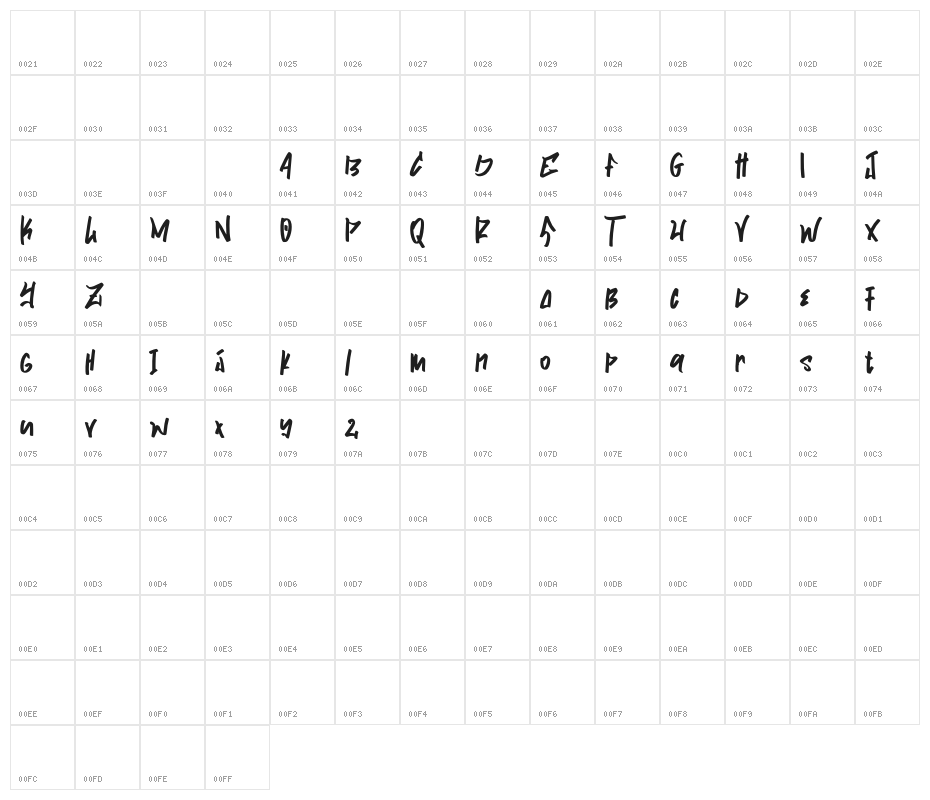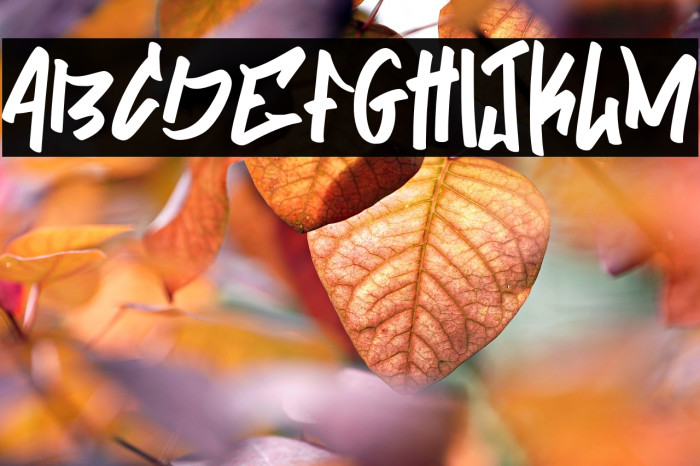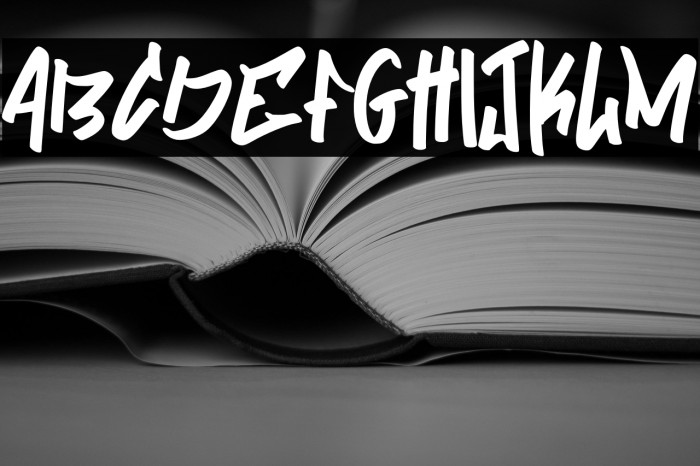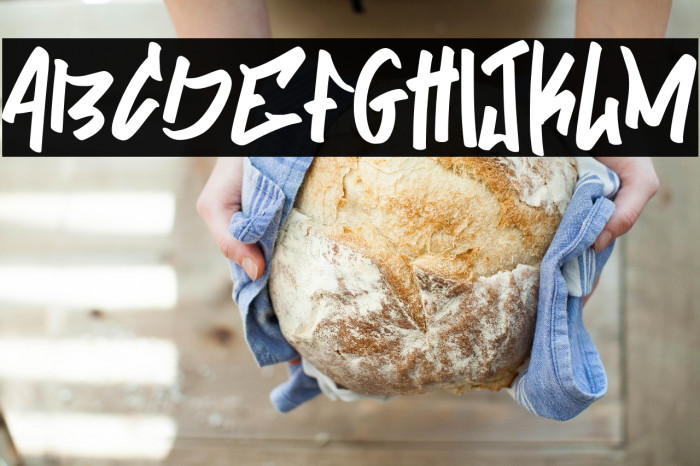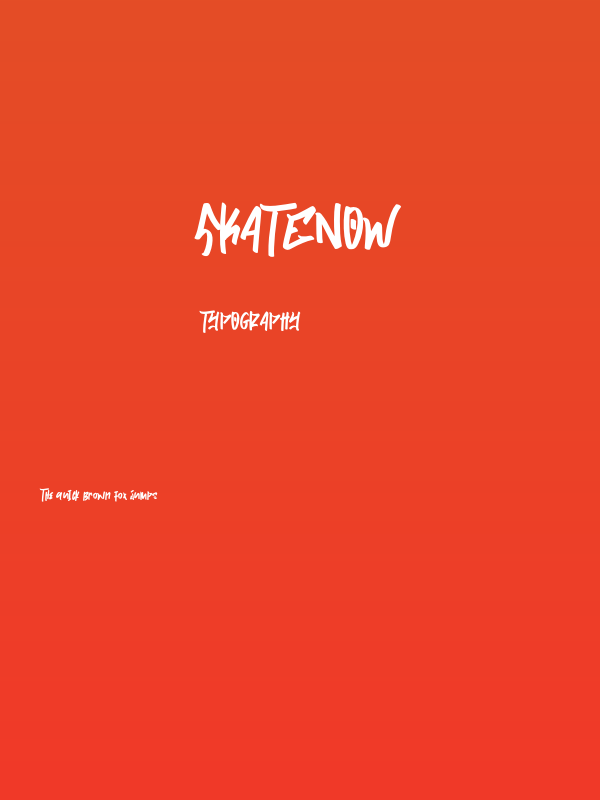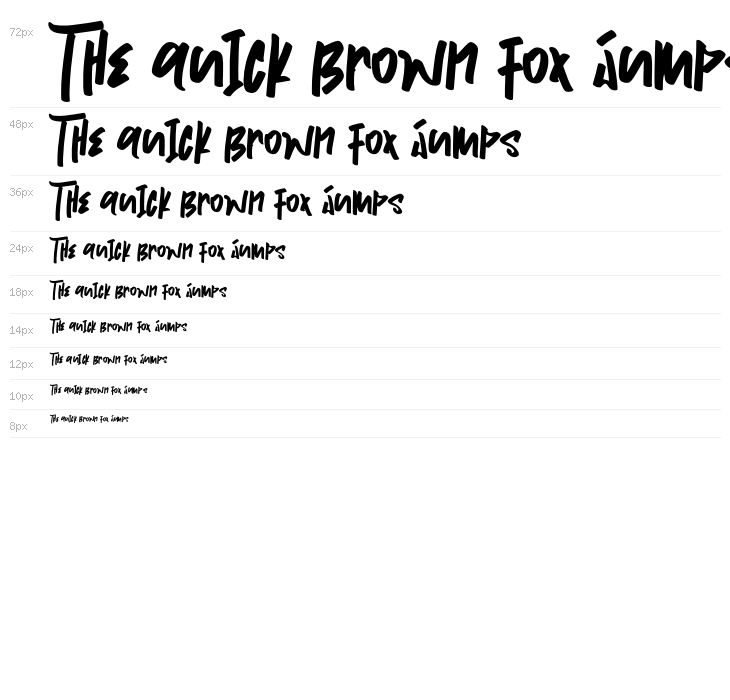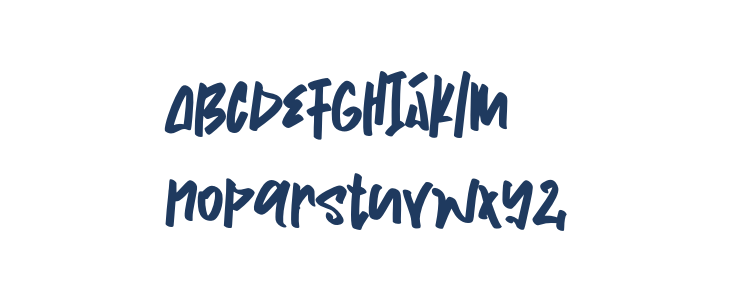
Skatenow Font
Skatenow Description
This font exudes a bold, energetic style with its graffiti-inspired design. The letters are characterized by thick strokes and dynamic, angular shapes that convey a sense of movement and urban flair. The uppercase and lowercase letters maintain a consistent style, with some letters featuring unique, stylized elements that enhance the overall aesthetic. The numbers and special characters are equally bold, fitting seamlessly into the font's cohesive look. This font is perfect for projects that require a strong, eye-catching presence.
| Overall Style | Urban, Energetic, Graffiti |
| Use Case | Logos, Posters, Headlines |
| Proposed Projects | Ideal for streetwear branding, skateboarding event posters, urban art projects, and music album covers. |